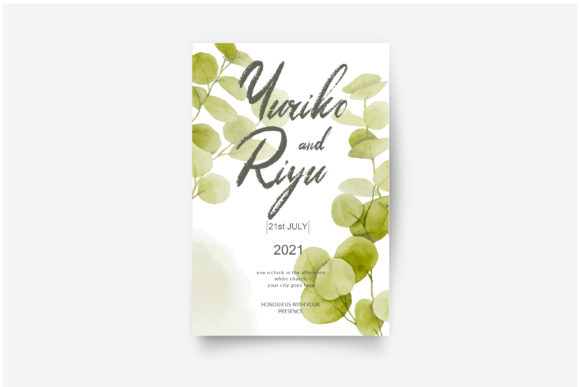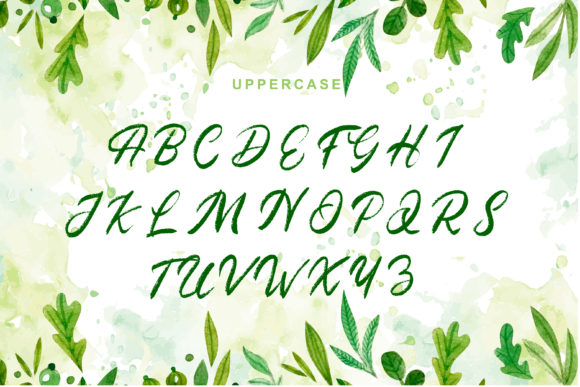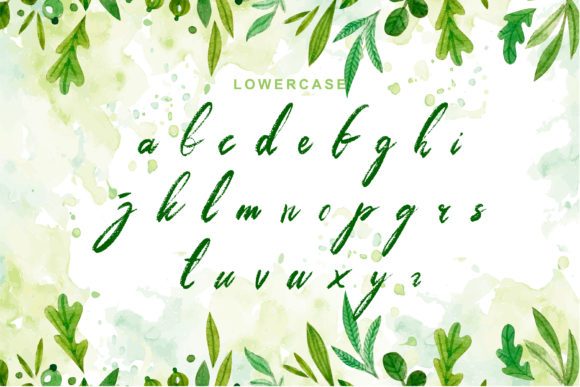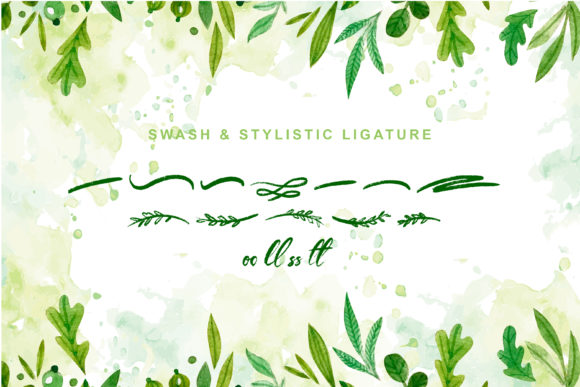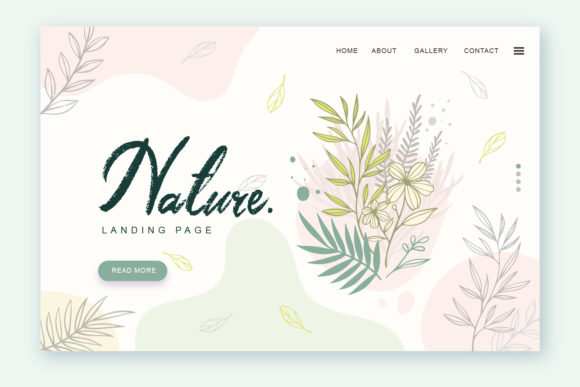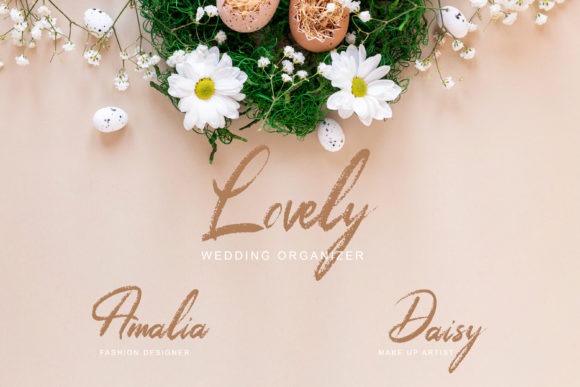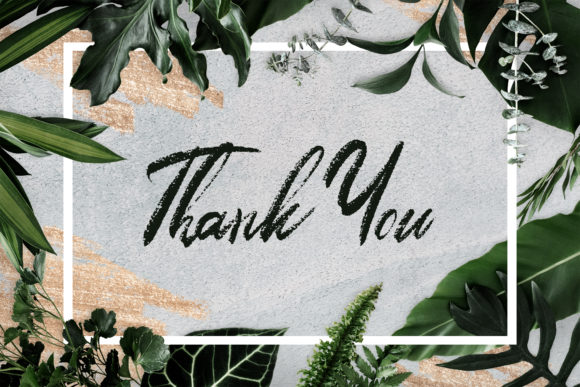
Meadows Font
About Meadows Font
Meadows is a sweet, classic hand-lettered script. The playful textured characters make it the perfect font for creating stunning calligraphy art. Meadows comes packed with bold and aesthetic swashes, that will allow you to add a decorative touch within seconds. Ignite your creativity with this beautiful font, and use it to elevate any craft to the highest level!